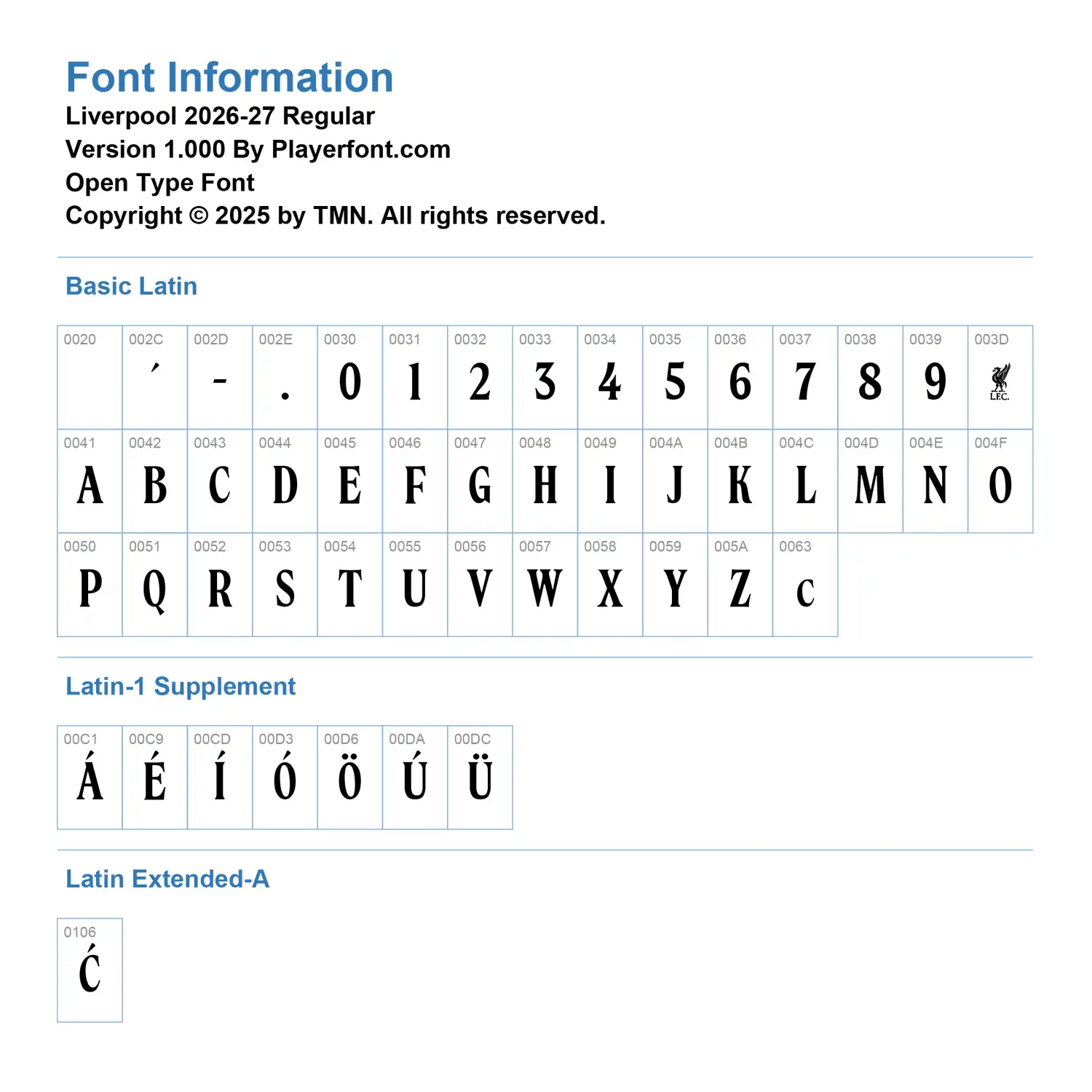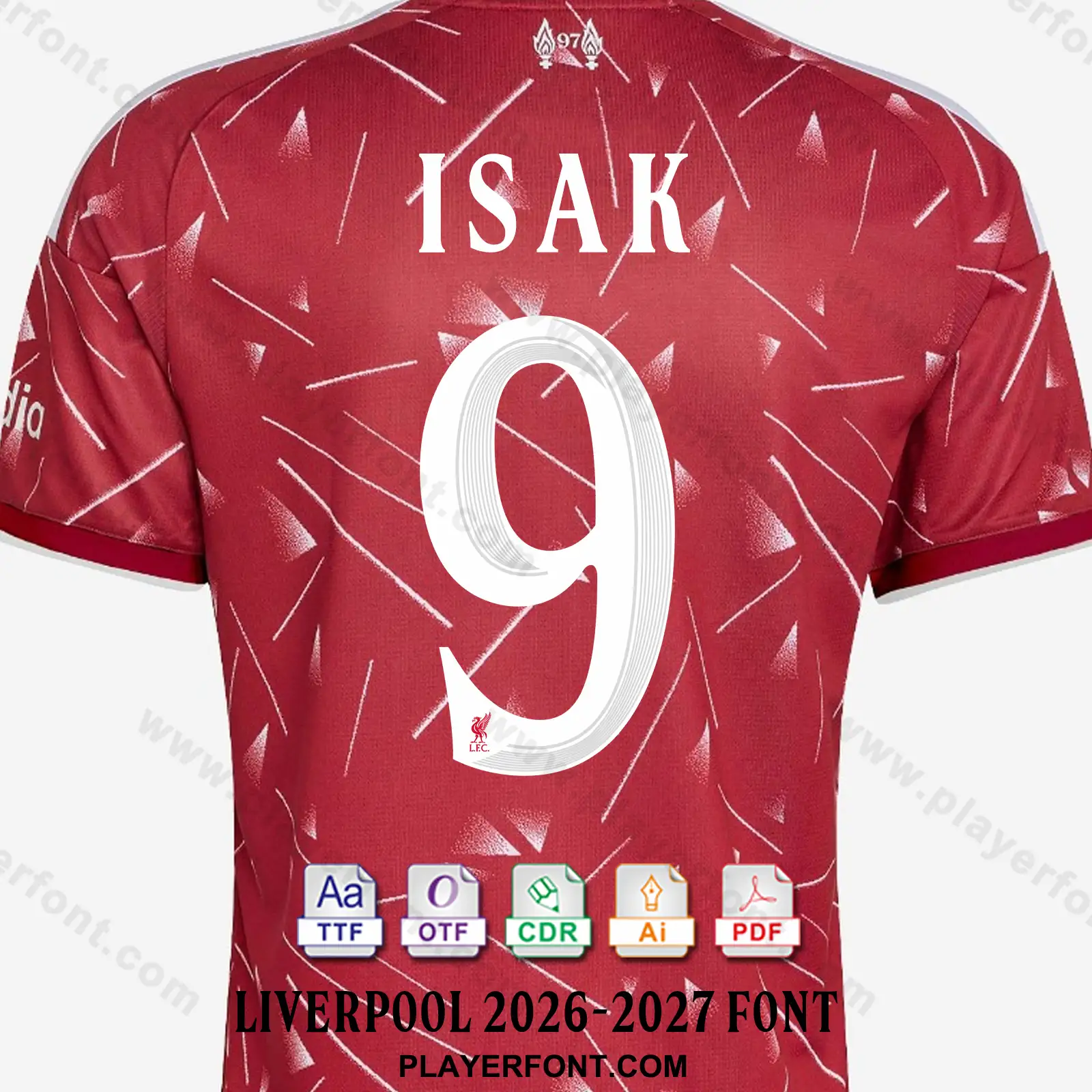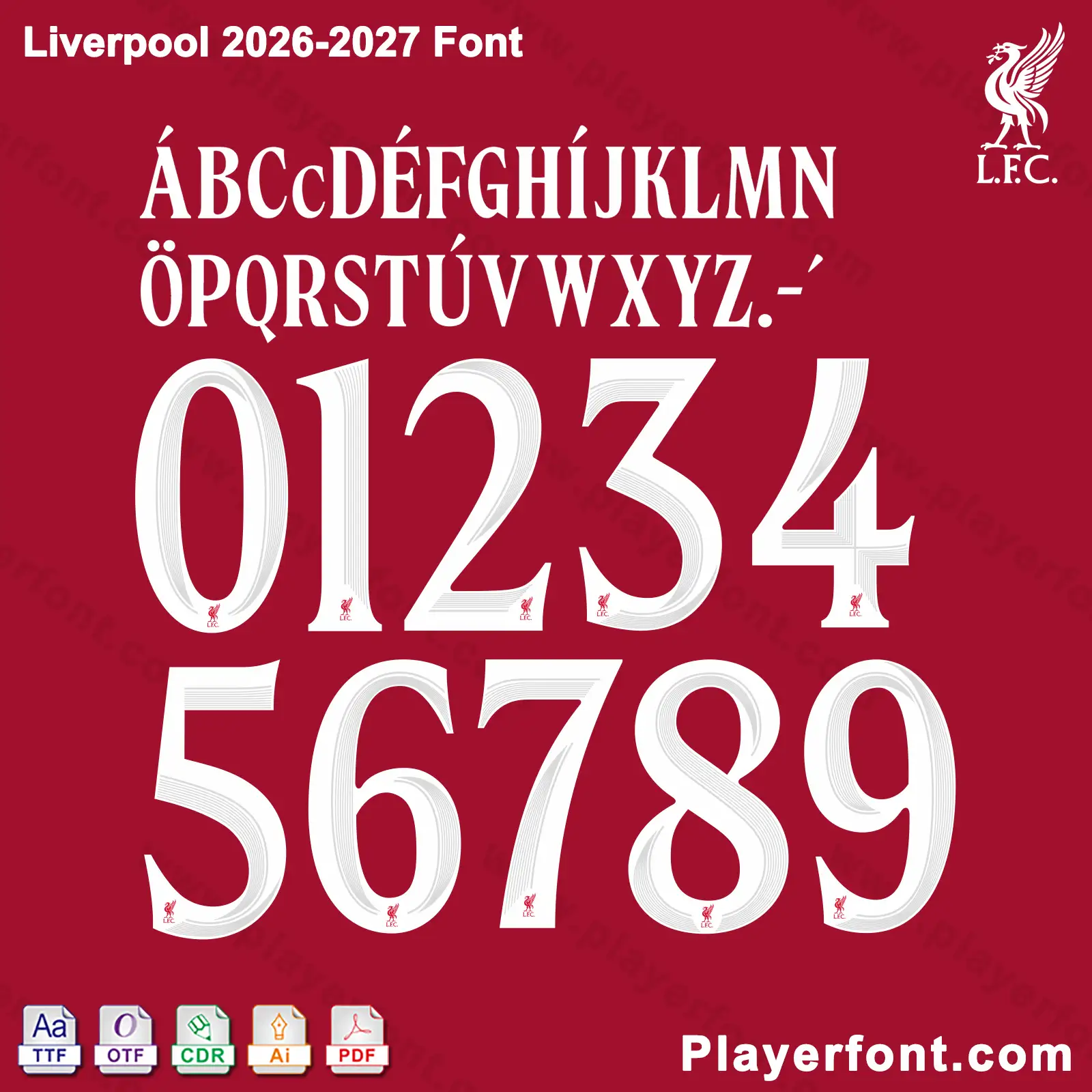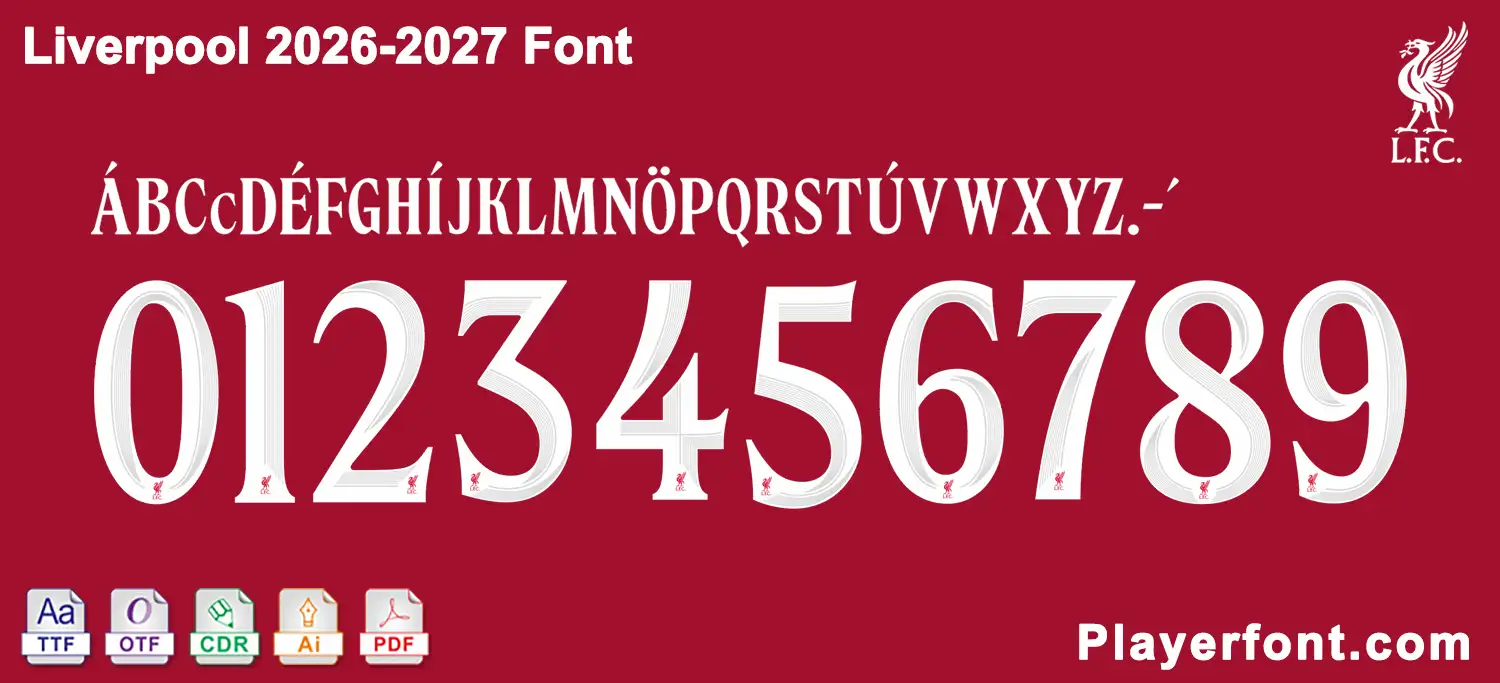
Get the official-style Liverpool 2026-2027 font kit for your custom jersey designs, sports graphics, and merchandise. This premium typography package features the complete character set and distinctive 3D-shaded numbers with the integrated L.F.C. crest. Fully compatible with all major design software.
• Features: Full basic Latin alphabet, custom accents, and high-resolution jersey numbers.
Elevate your sports design projects with the highly anticipated Liverpool 2026-2027 font kit. Meticulously recreated by Playerfont.com, this typeface captures the bold, modern, yet classic essence of the upcoming 2026/27 football season.
Key Features & Extended Character Map
This typeface is built to handle international player names and complex typography demands:
• Basic Latin Set: Complete uppercase A-Z alphabet, punctuation symbols (., -, '), and standard spacing.
• Latin-1 Supplement & Extended-A: Includes essential European diacritics and accented characters like Á, É, Í, Ó, Ö, Ú, Ü, and Ć for authentic player name spelling.
• Iconic Jersey Numbers: Detailed 0-9 numbers featuring a striking inner parallel-line texture, distinctive 3D shading, and the integrated L.F.C. Liverbird crest embedded seamlessly at the base of every digit.
• Bonus Character: Includes a specialized lowercase c variant for proper formatting of complex names (e.g., McDavid or special prefixes).